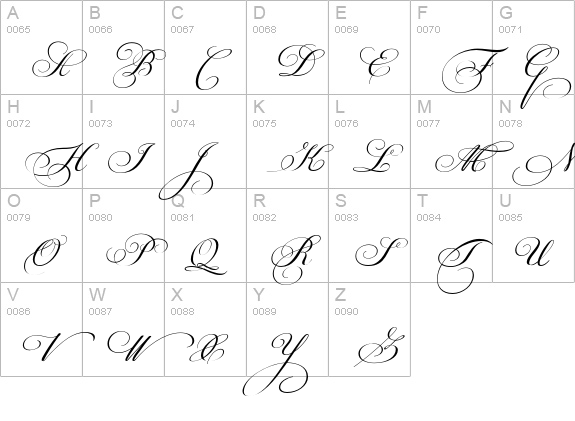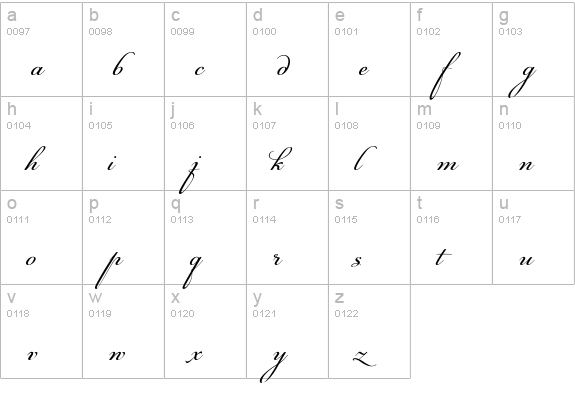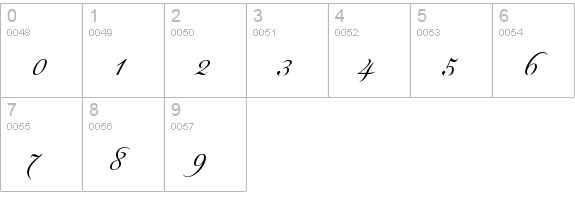
PFChampionScriptPro-Regular is the standard, neutral variant in the PFChampionScriptPro typeface family \xE2\x80\x94 well suited to general body text, paragraphs, and standard typographic work.
PFChampionScriptPro-Regular is a sophisticated and elegant script font that exudes class and style. With its fluid strokes and graceful curves, this font is perfect for adding a touch of glamour to any project. Whether you're designing invitations, branding materials, or packaging, PFChampionScriptPro-Regular will elevate your work to the next level. The best part is, PFChampionScriptPro-Regular is available for free download at FontsMarket.com. You can easily access this stunning font and start using it in your designs without any cost. Don't miss out on the opportunity to enhance your projects with the beauty and charm of PFChampionScriptPro-Regular. Download it now and let your creativity shine!